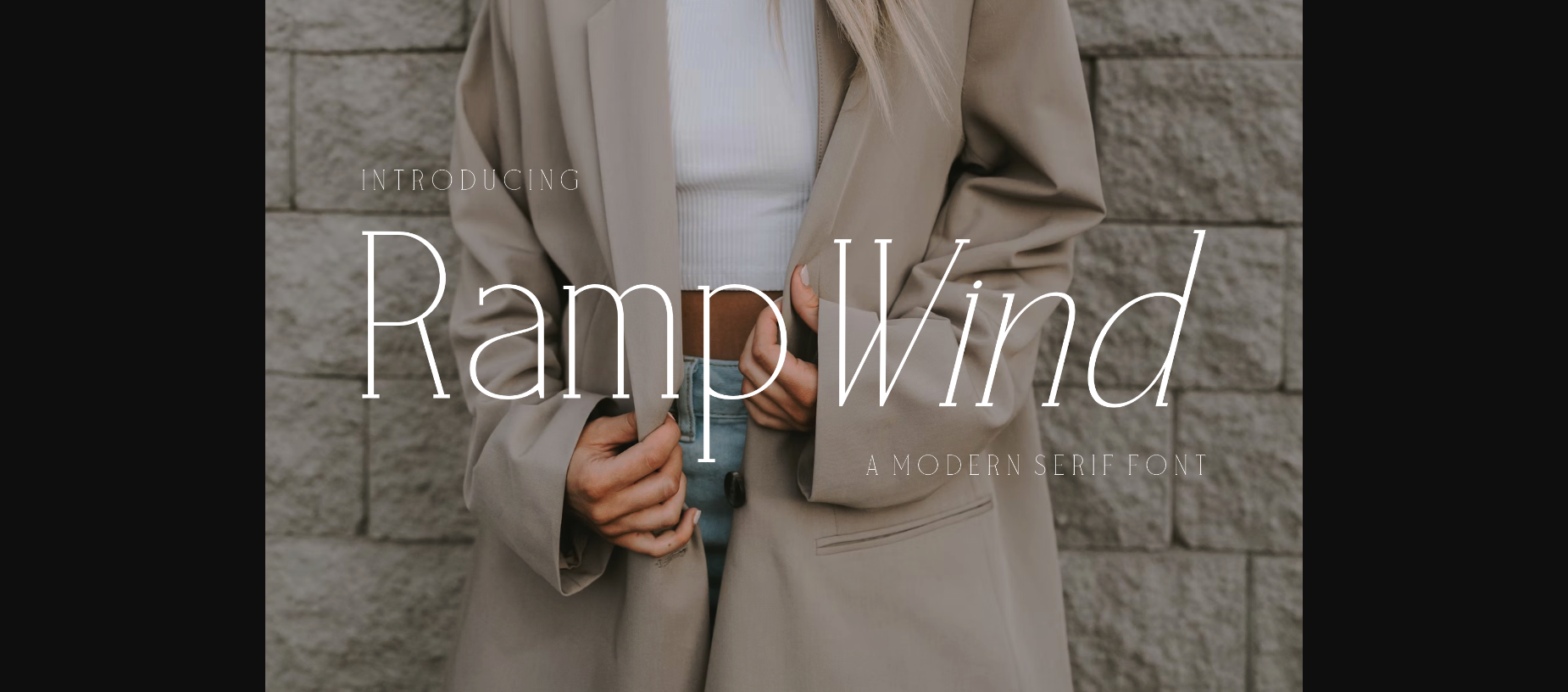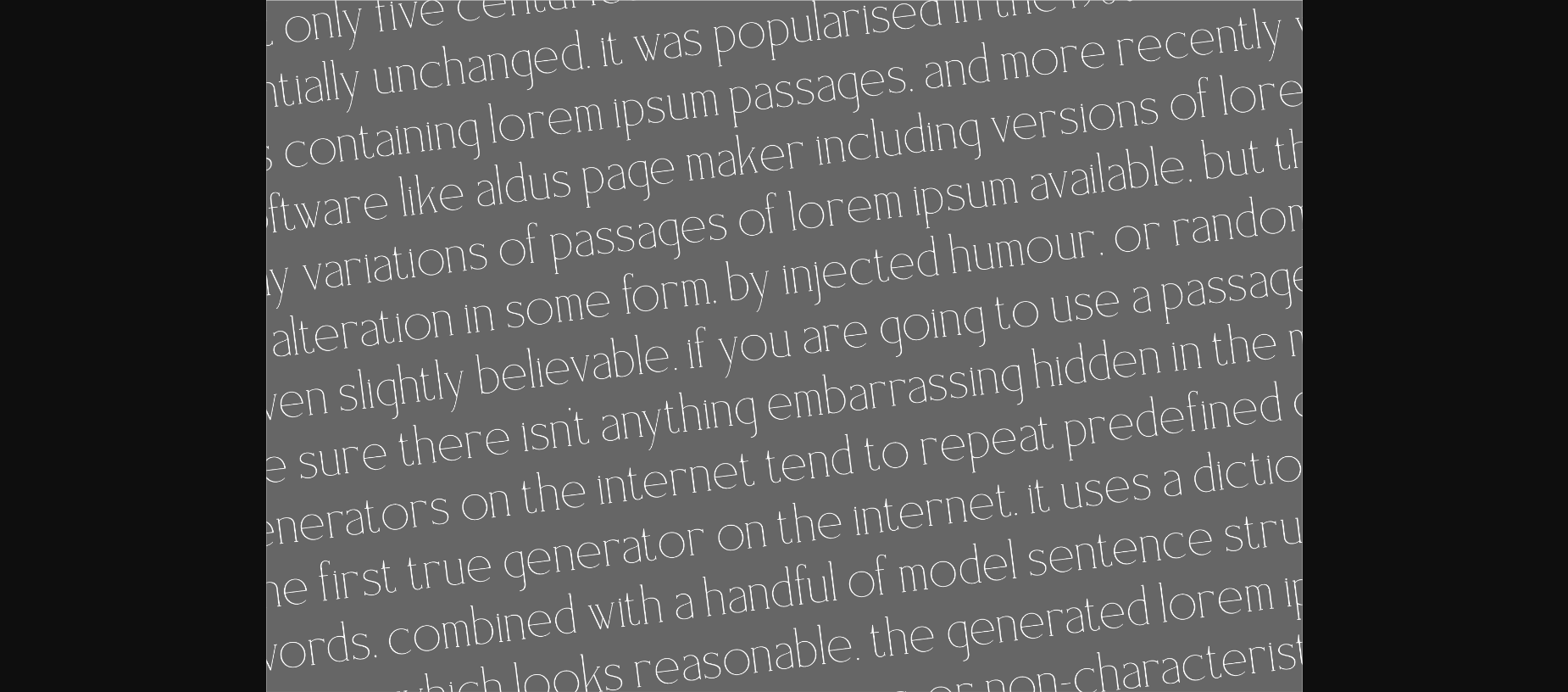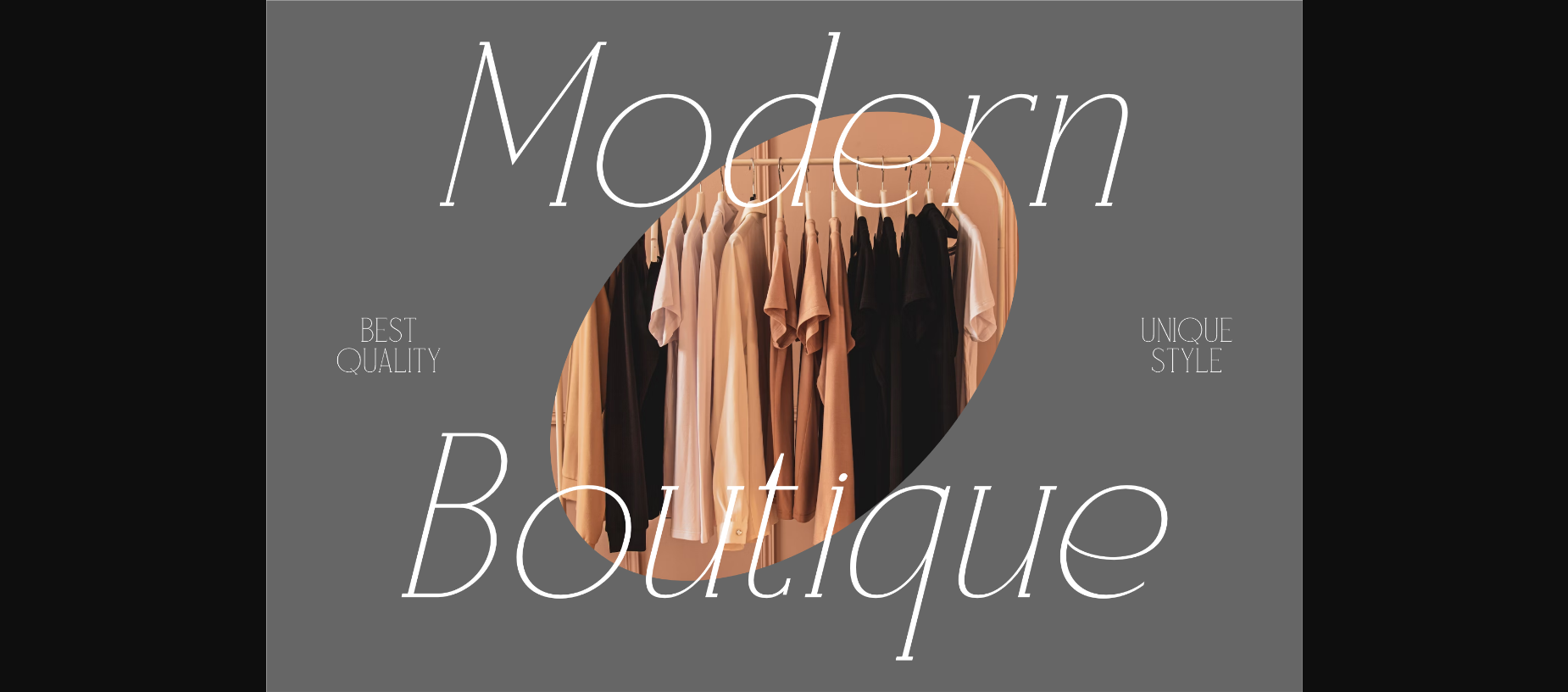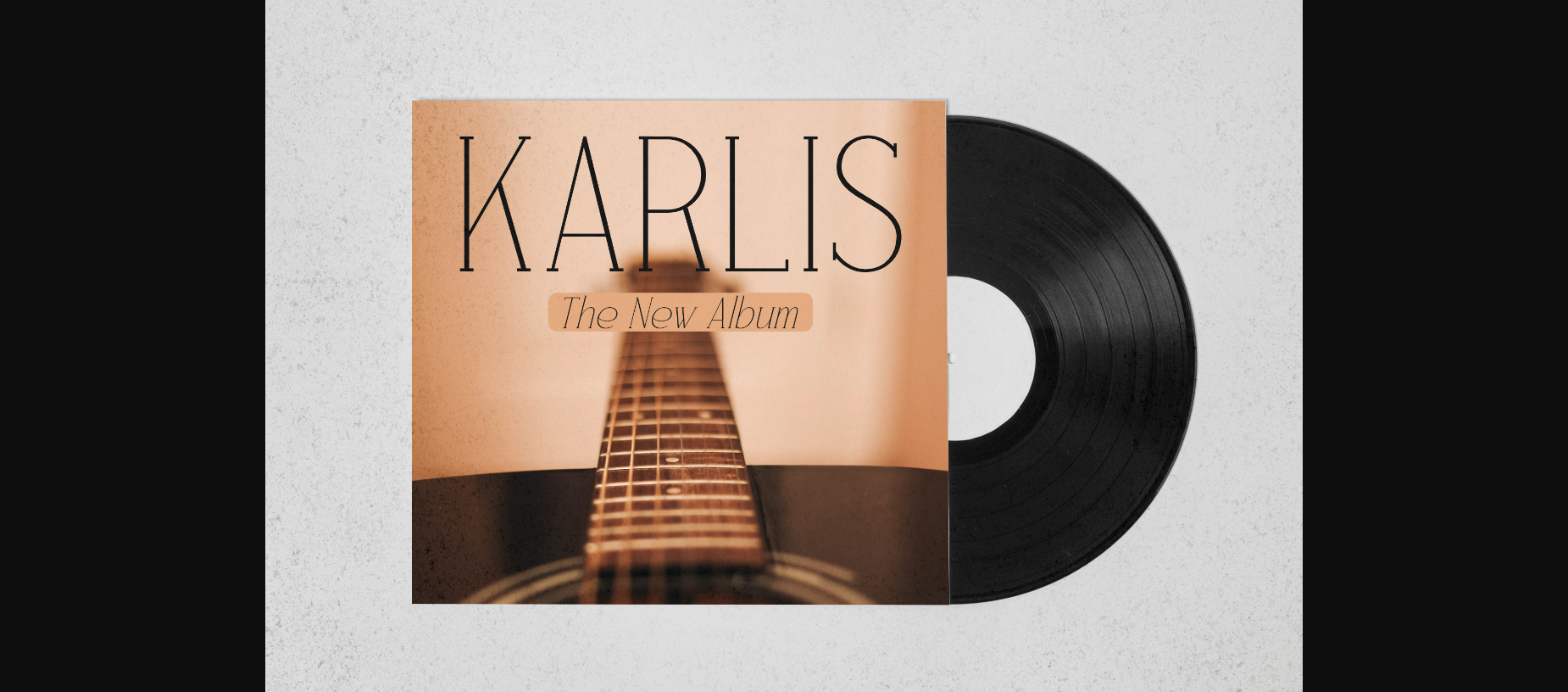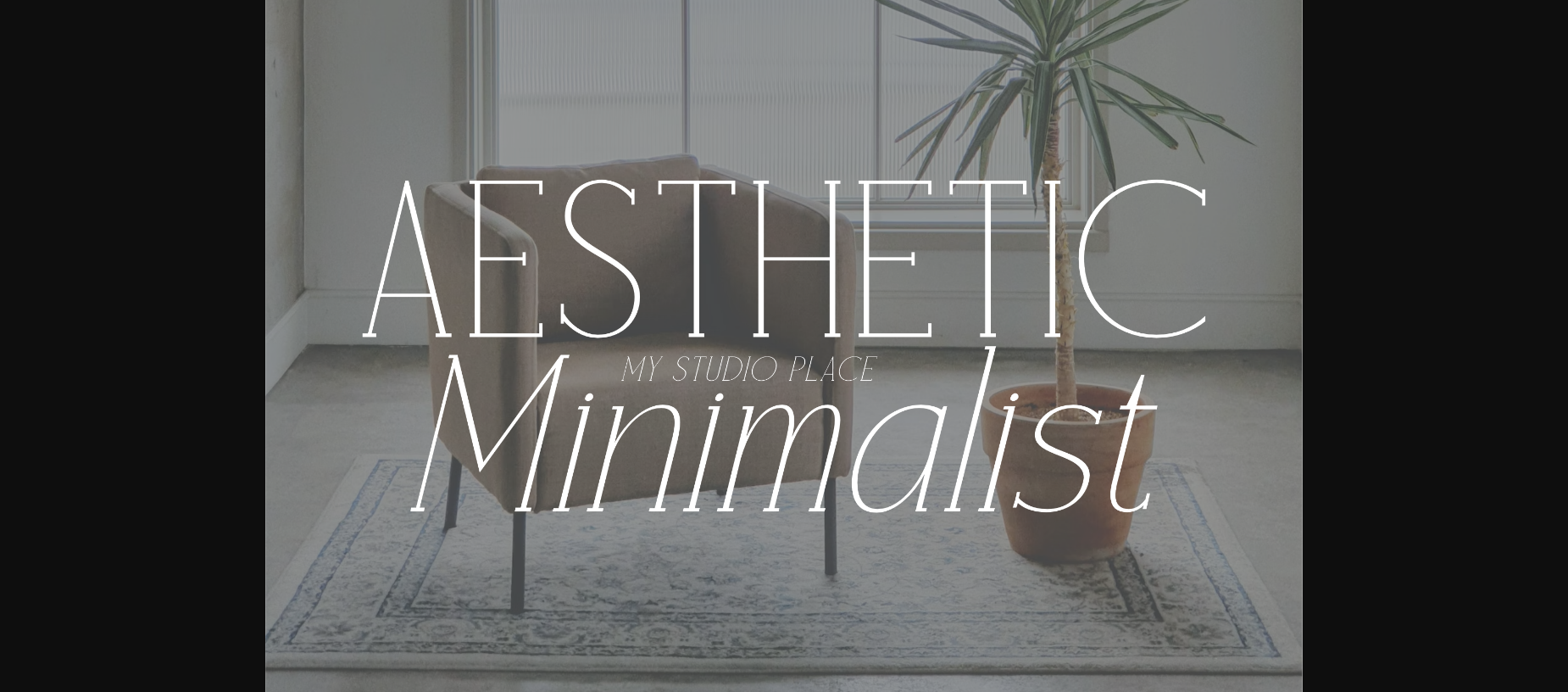
About Rampwind Font
Rampwind is a modern and classic sans serif font. This typeface is perfect for an elegant & luxury logo, book or movie title design, fashion brand, magazine, clothes, lettering, quotes, and so much more.